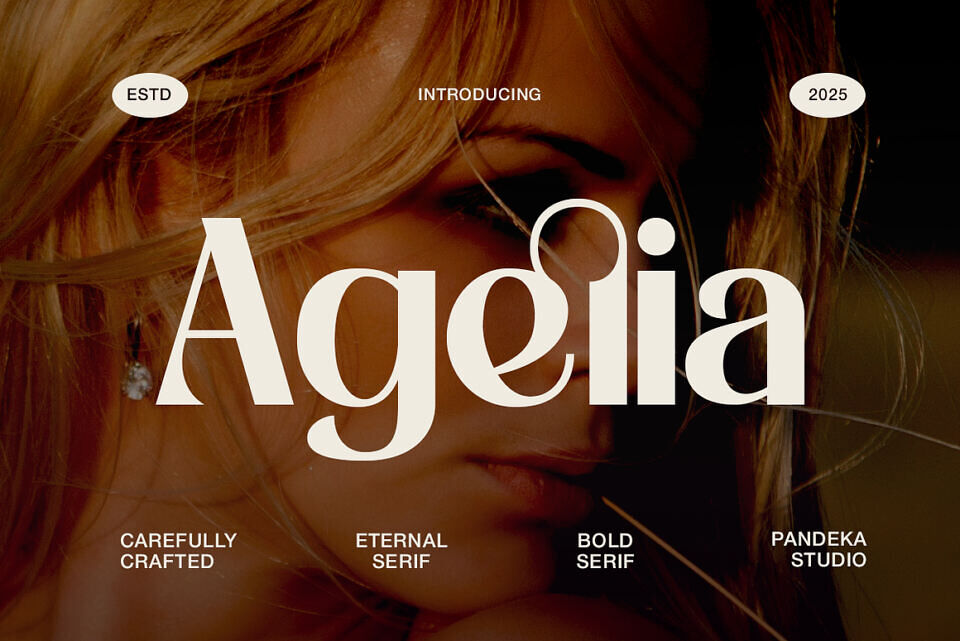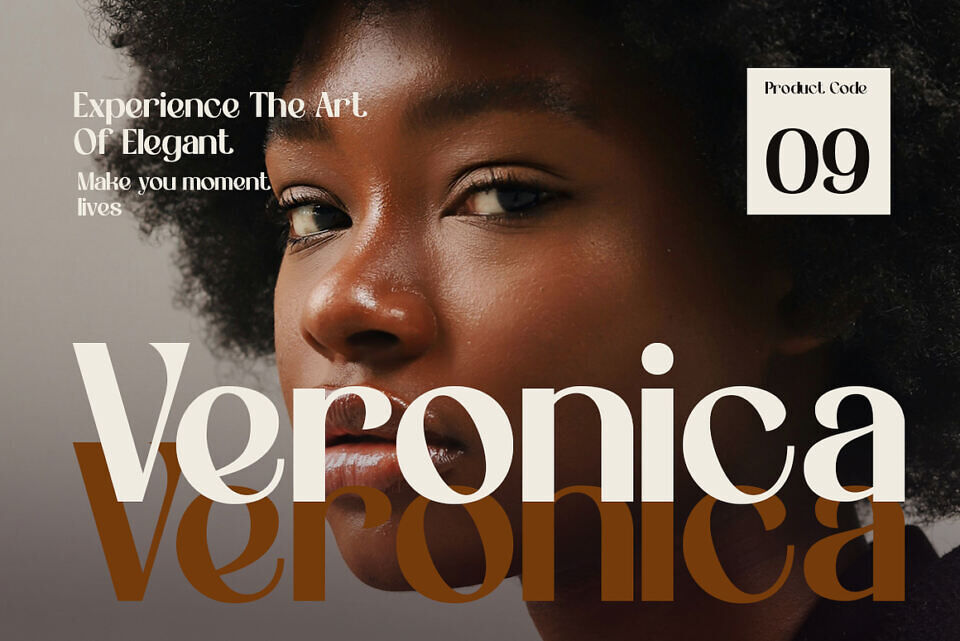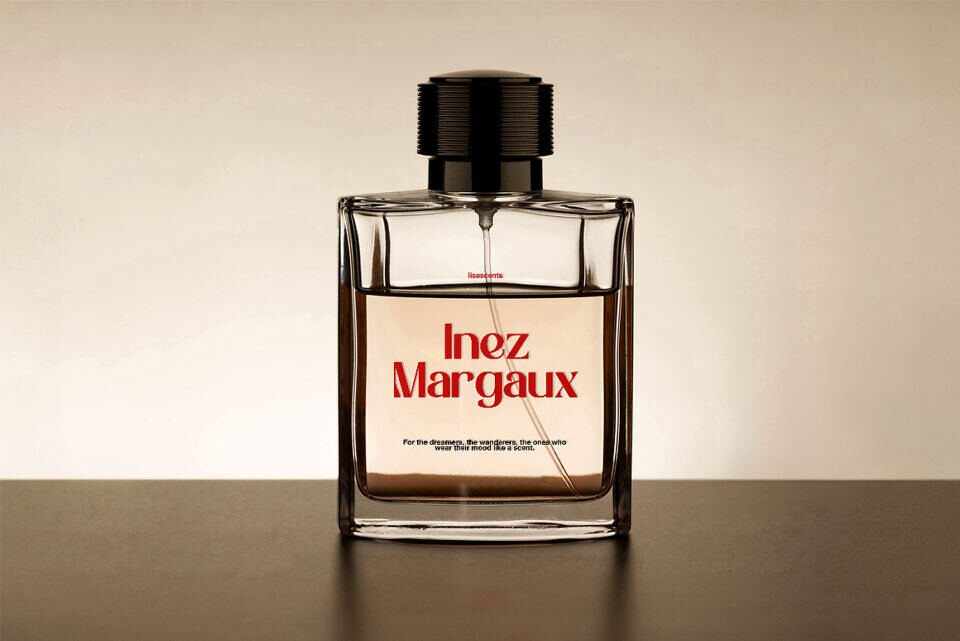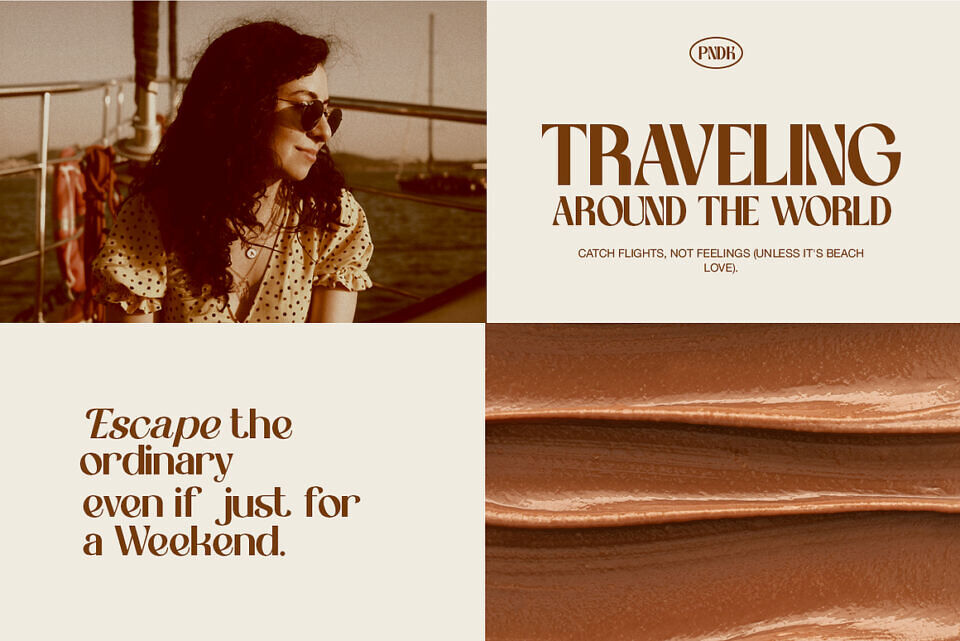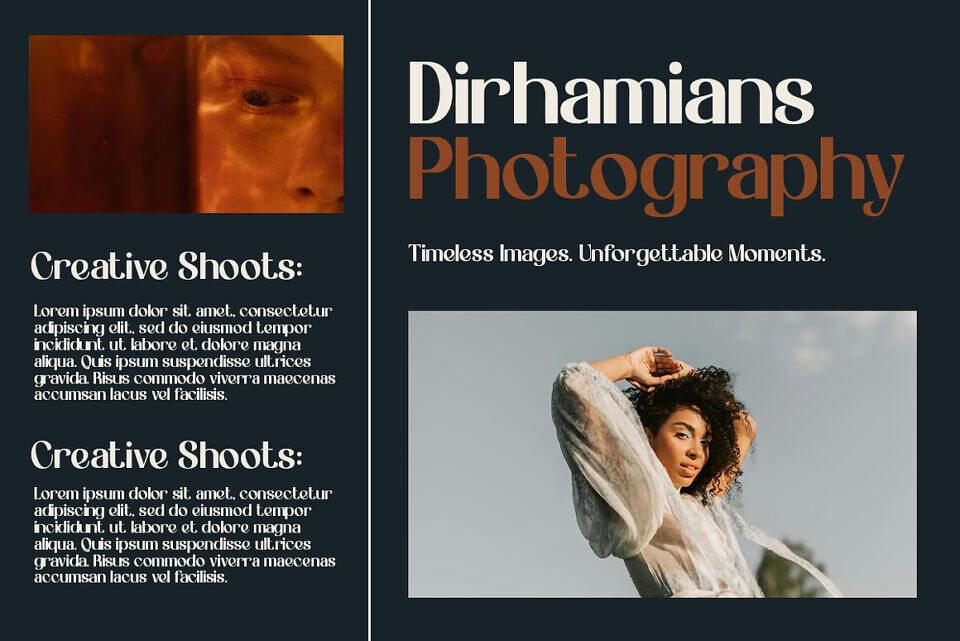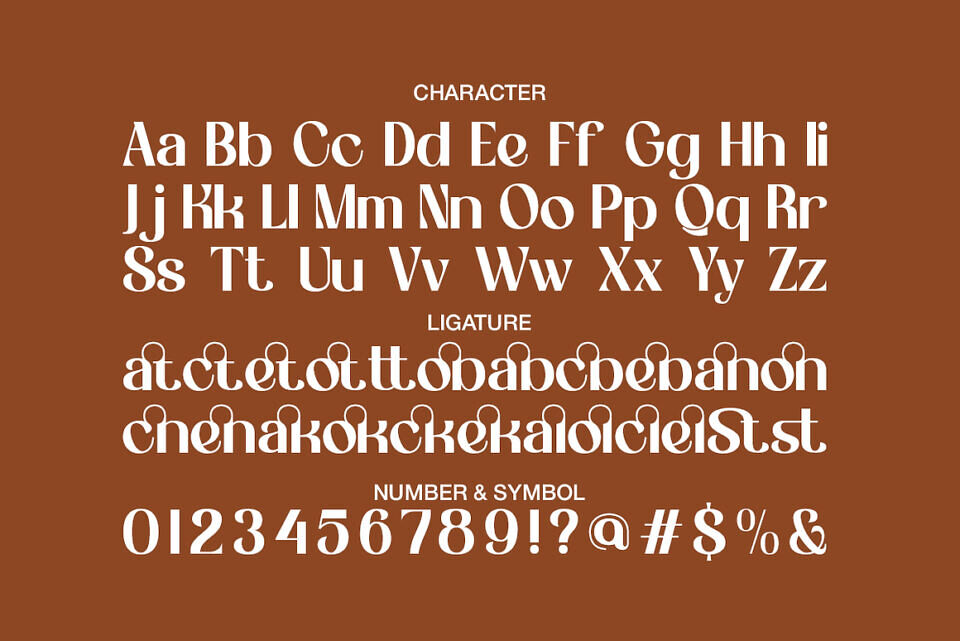
Agelia is an eternal serif font with 2 refined styles: Regular and Italic. Blending timeless typography with a sophisticated look, it’s perfect for elegant design applications such as luxury branding, classic packaging, editorial layouts, wedding invitations, premium book covers, and high-end website headers. With its graceful lettering and polished aesthetic, Agelia adds a unique, refined touch to any project.